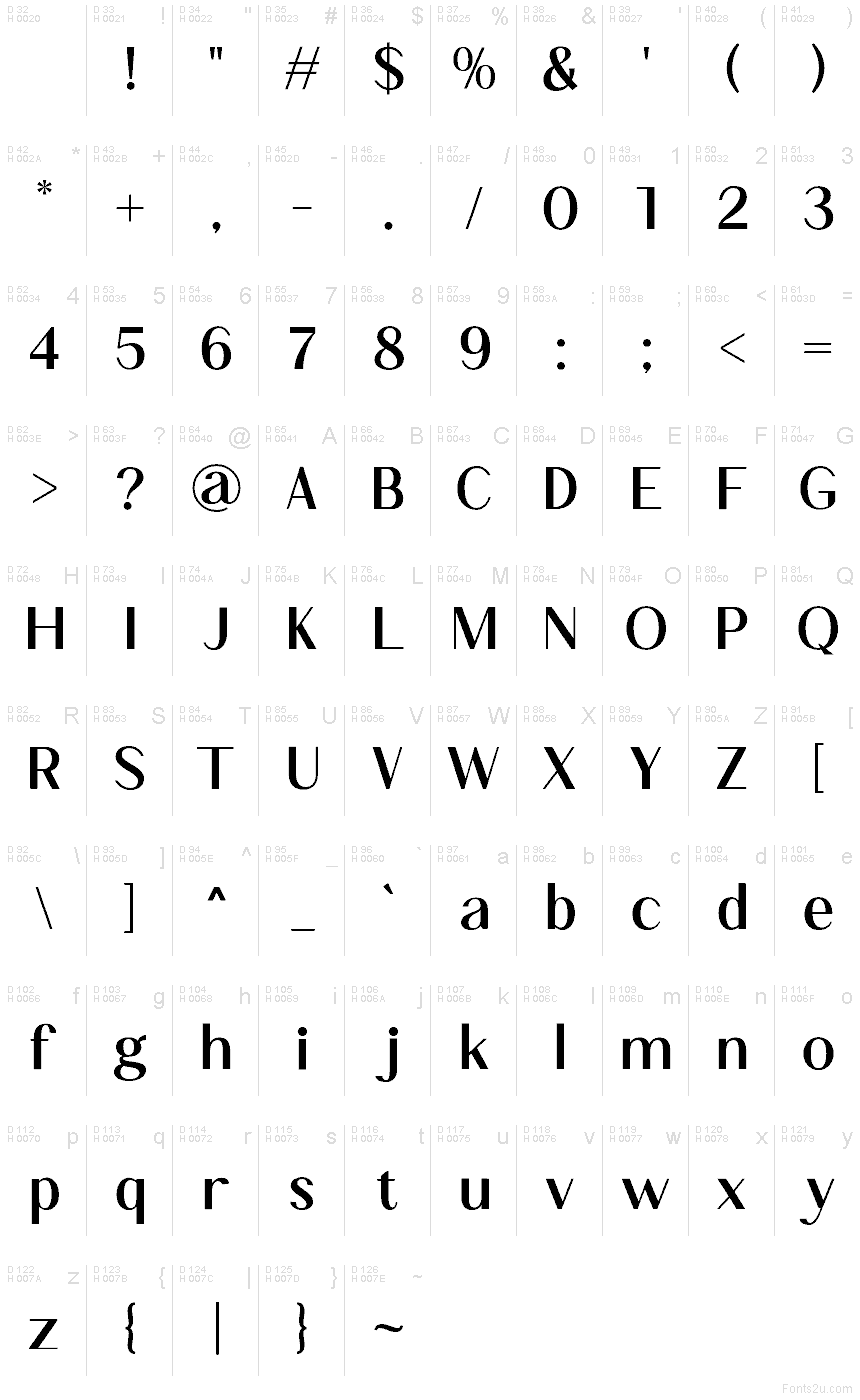
Gavoline
Gavoline font is a sleek free sans serif font designed by Font Kingdom. This traditional typeface has a stylish youthful look, classic legibility, and balanced proportions. With high contrast, it easily reflects elegance with sophistication in the most timeless way.
With a variety of use cases, Gavoline would fit ideally in websites, signage systems, interfaces design, apps & software programs designs. This typeface will look equally great on newspapers and magazine publications (both digital and printed), body copy texts for books/ebooks publication or interiors pages and covers.